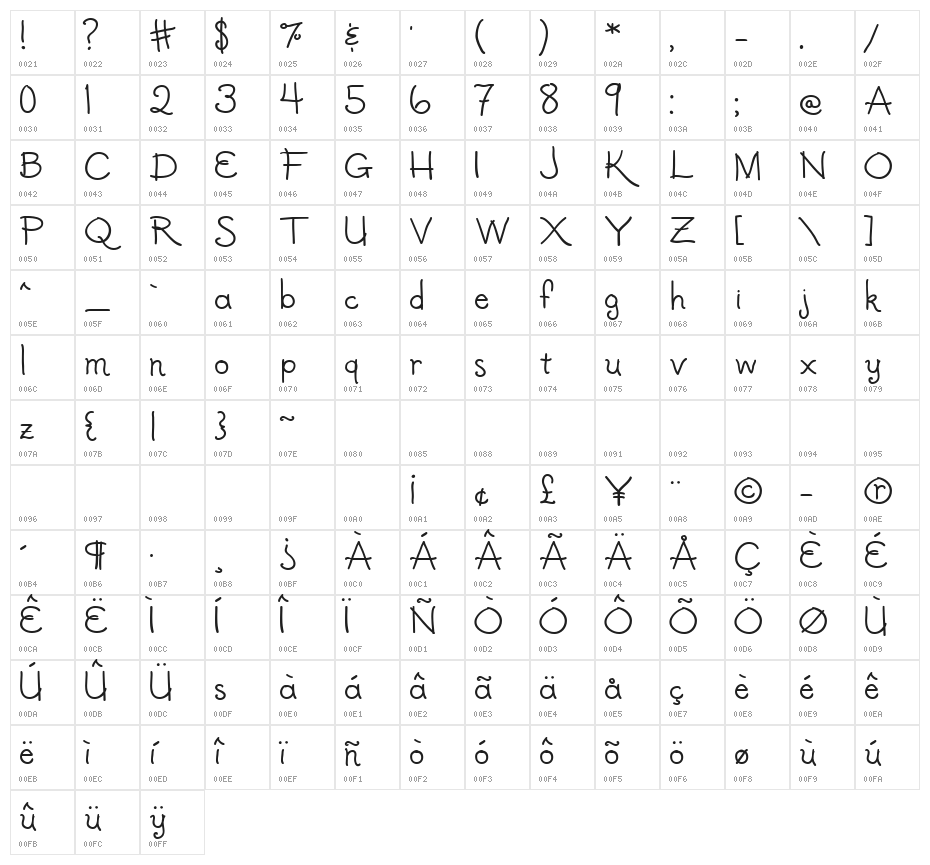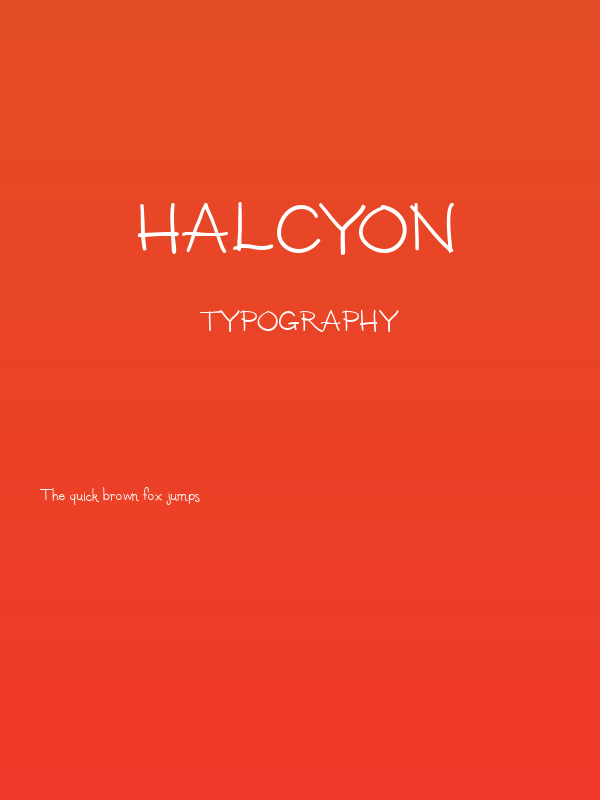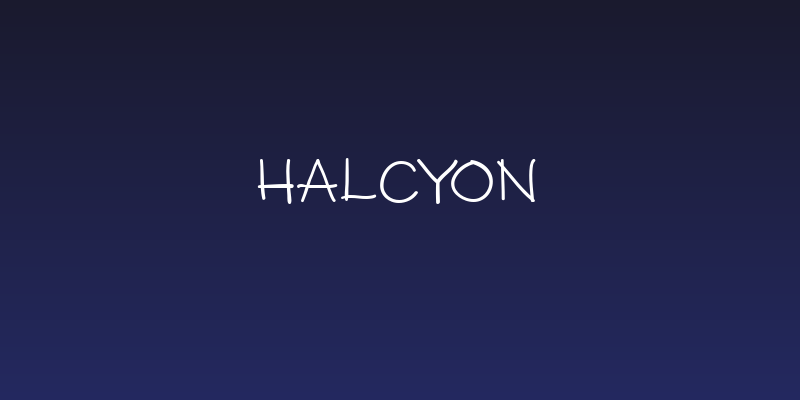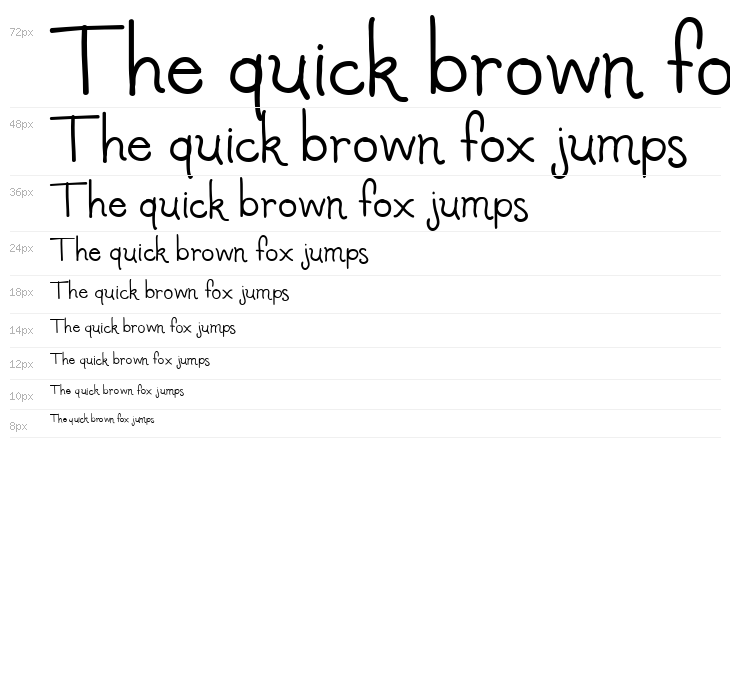
Halcyon Font
| Категория | Decorative |
| Общий стиль | Casual |
| Область применения | Headlines, Informal text, Creative projects |
| Рекомендуемые проекты | Ideal for greeting cards, children's books, casual branding, and social media graphics. |